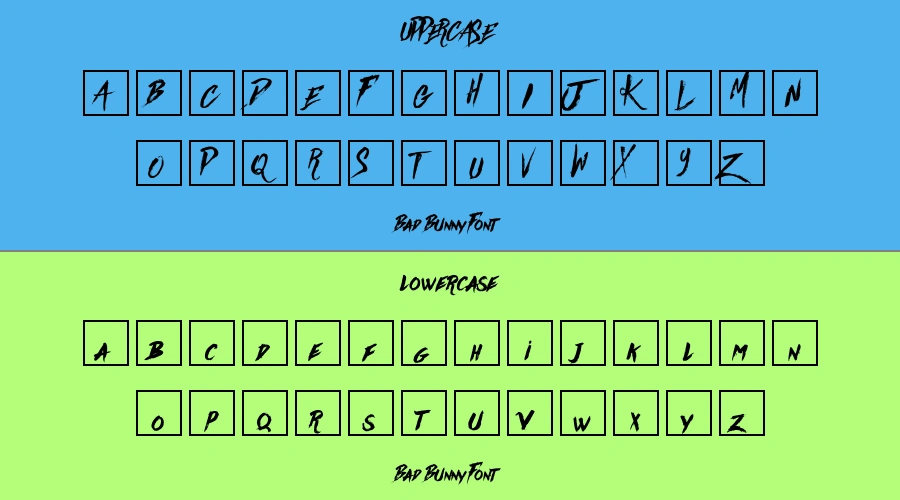
About Bad Bunny Font
When typographic excellence matters most, Bad Bunny Font delivers through its thoughtful blend of script connections and artistic impact. Specially crafted for formal announcements, it offers the clarity and visual authority required for sophisticated design work. Every detail serves a purpose.
The character set showcases thoughtful details like calligraphic influence alongside functional decorative caps. This proves especially valuable in traditional announcements, where detail retention directly influences results. Particular attention was paid to counter size and emotional appeal during development.